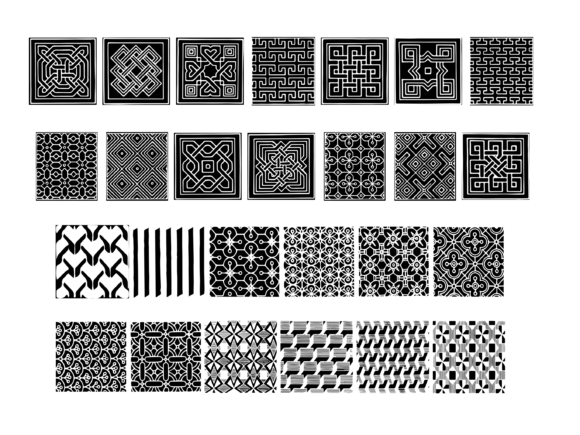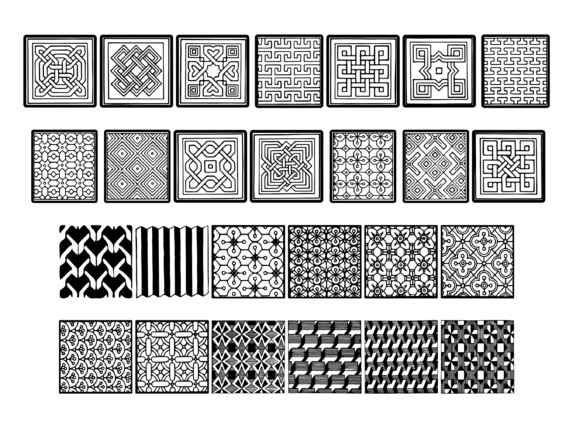
Unlock Your Creativity with Geometric Patterns Font
Are you a designer, crafter, or DIY enthusiast looking for a unique and versatile font to elevate your creative projects? Look no further than Geometric Patterns Font, a fun and useful dingbats font that’s perfect for adding a touch of geometric elegance to your work. In this article, we’ll dive into the world of Geometric Patterns Font, exploring its features, benefits, and uses, as well as providing tips and inspiration for incorporating it into your designs.
What is Geometric Patterns Font?
Geometric Patterns Font is a decorative dingbats font that features a wide range of geometric patterns, from simple shapes to intricate designs. Its unique and visually appealing characters make it an excellent choice for adding visual interest to your projects, whether you’re working on a logo, brochure, website, or craft project.
Key Features of Geometric Patterns Font
- Geometric and decorative patterns: The font features a vast array of geometric patterns, including chevrons, hexagons, triangles, and more.
- Highly versatile: Geometric Patterns Font is suitable for a wide range of creative projects, from graphic design and branding to crafting and DIY.
- Scalable: The font is highly scalable, ensuring that it looks great in any size or application.
Benefits of Using Geometric Patterns Font
So why choose Geometric Patterns Font for your next project? Here are just a few benefits of using this amazing font:
- Add visual interest: Geometric Patterns Font adds a unique and eye-catching element to your designs, making them stand out from the crowd.
- Enhance branding: The font’s geometric patterns can help create a cohesive and recognizable brand identity.
- Inspire creativity: The font’s versatility and variety of patterns can spark new ideas and inspire creativity.
- Save time: With Geometric Patterns Font, you can quickly and easily add professional-looking designs to your projects.
Using Geometric Patterns Font in Your Designs
So, how can you incorporate Geometric Patterns Font into your designs? Here are a few ideas to get you started:
- Logos and branding: Use the font to create a unique and memorable logo or add geometric patterns to your brand’s visual identity.
- Graphic design: Add geometric patterns to your brochures, flyers, and other marketing materials to make them stand out.
- Web design: Use the font to create visually appealing website headers, footers, and backgrounds.
- Crafting and DIY: Incorporate geometric patterns into your craft projects, such as papercraft, quilting, or embroidery.
Tips and Tricks for Working with Geometric Patterns Font
To get the most out of Geometric Patterns Font, here are a few tips and tricks to keep in mind:
- Experiment with different sizes and colors: Play around with different font sizes and colors to find the perfect combination for your design.
- Mix and match patterns: Combine different geometric patterns to create unique and interesting designs.
- Use as a background or overlay: Use the font as a background or overlay to add texture and interest to your designs.
Geometric Patterns Font is a fun and useful dingbats font that’s perfect for designers, crafters, and DIY enthusiasts looking to add a touch of geometric elegance to their creative projects. With its highly versatile and visually appealing characters, this font is sure to inspire creativity and take your designs to the next level. So why wait? Download Geometric Patterns Font today and unlock your creativity!